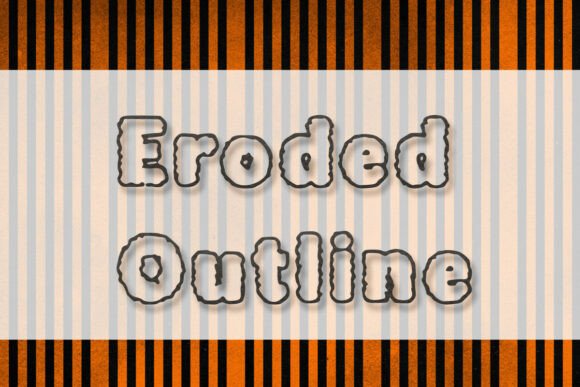
Introduction to Eroded Outline Font
Unleash the brash beauty of the Eroded Outline font as it infuses relentless character into your designs.
Perfectly suited to invigorate t-shirts, stickers, and personal branding efforts, this font also shines in high-end publications like magazines Playful yet potent, it breathes life into SVG files, greeting cards, and creative Cricut projects.